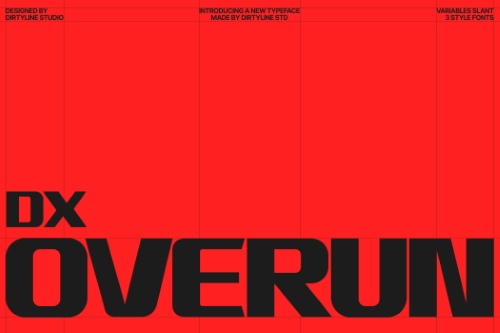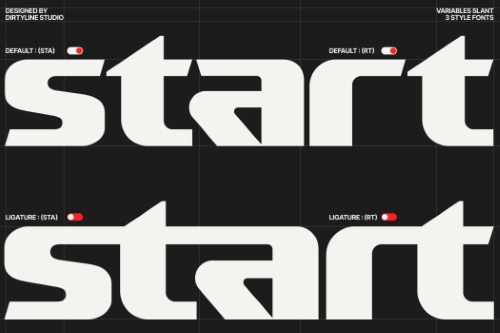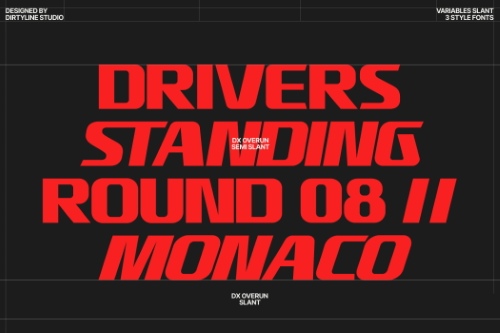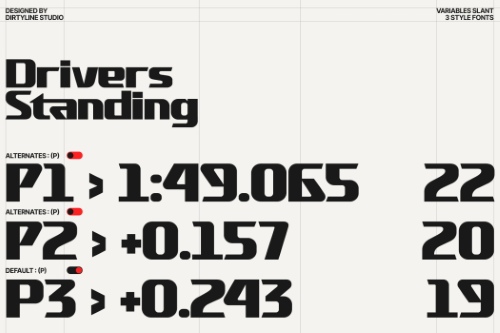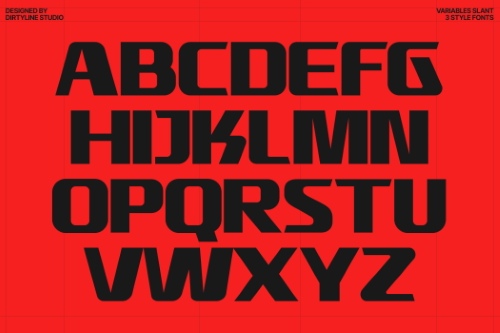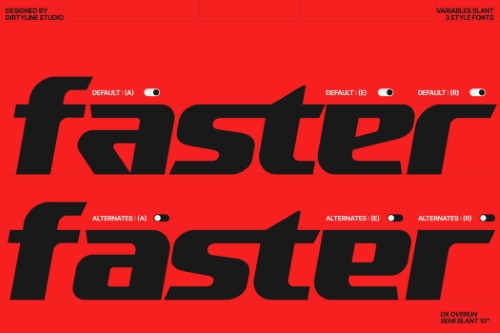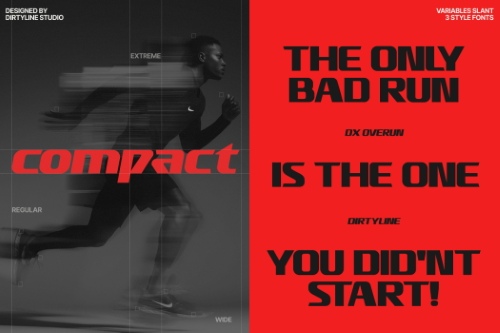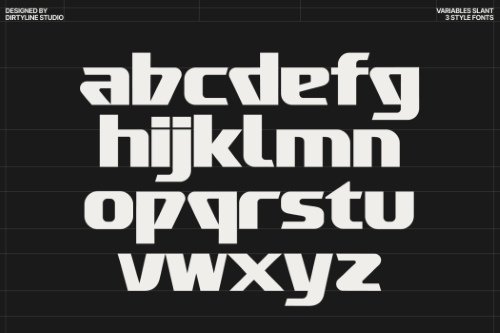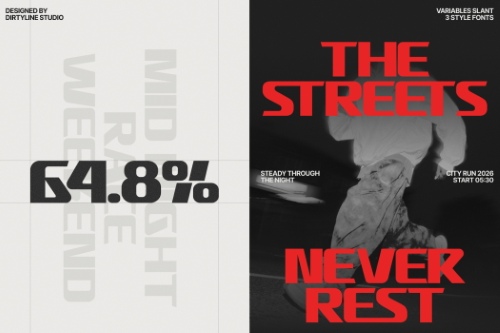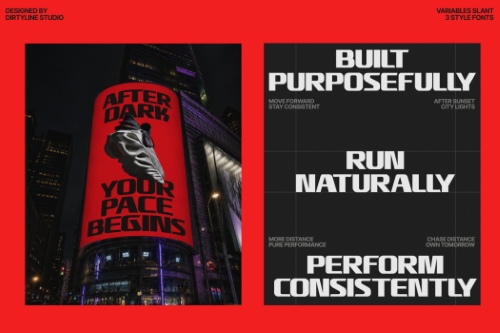
DX Overun - 3 Styles Font Family
- Dx Overun is a bold variable racing and motorsport display font engineered to express speed, power, and forward motion. Its wide proportions, heavy construction, aerodynamic slant, and sharp geometric cuts give every word a strong, high-performance character. Featuring three font styles, adjustable variable slant, distinctive stylistic alternates, and extensive multilingual support, Dx Overun gives designers the flexibility to create typography ranging from solid and powerful to fast and aggressively dynamic. This high-impact sports typeface is ideal for motorsport logos, racing event posters, automotive branding, esports titles, gaming graphics, sportswear, jersey designs, packaging, editorial headlines, social media campaigns, signage, and promotional artwork. Whether used for a racing identity, competitive sports campaign, or futuristic technology project, Dx Overun delivers bold visual energy built to command attention.